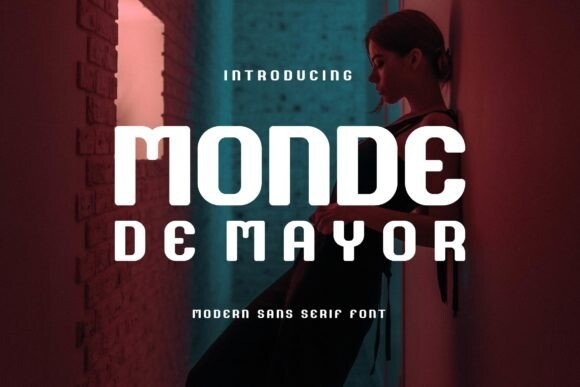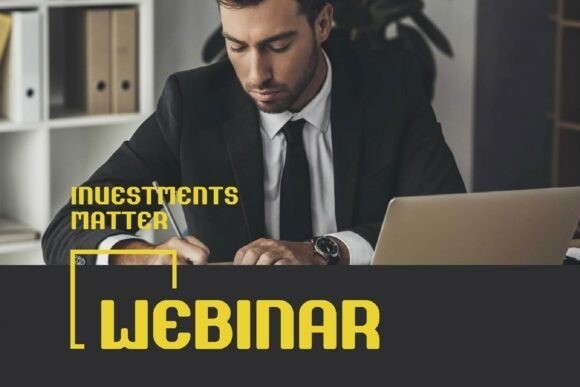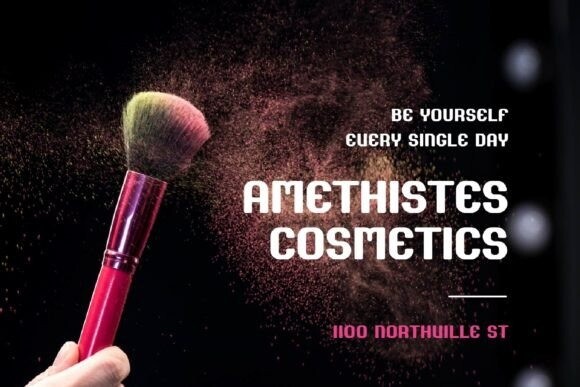
Monde De Mayor Font
Monde De Mayor Font is a sans type font. It is inspired by the famous minimalist logo perfect for the purposes of designing templates, brochures, videos, advertising branding, logos, invitation, layout design, elegant crafting, beauty design and so much more.